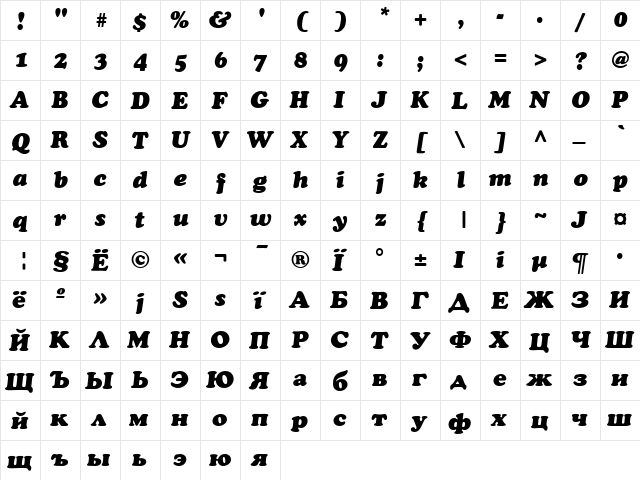
AG_Cooper Italic
Design Context for AG_Cooper Typeface
AG_Cooper offers clean, dependable letterforms without strong stylistic allegiance, making it a practical choice for designers who need flexibility. The dynamic lean of this cut emphasises speed and emphasis in any layout.